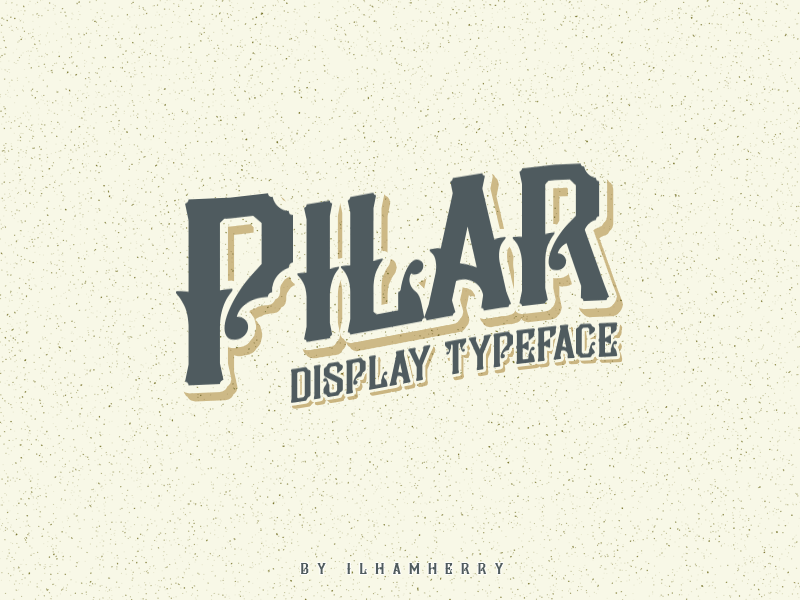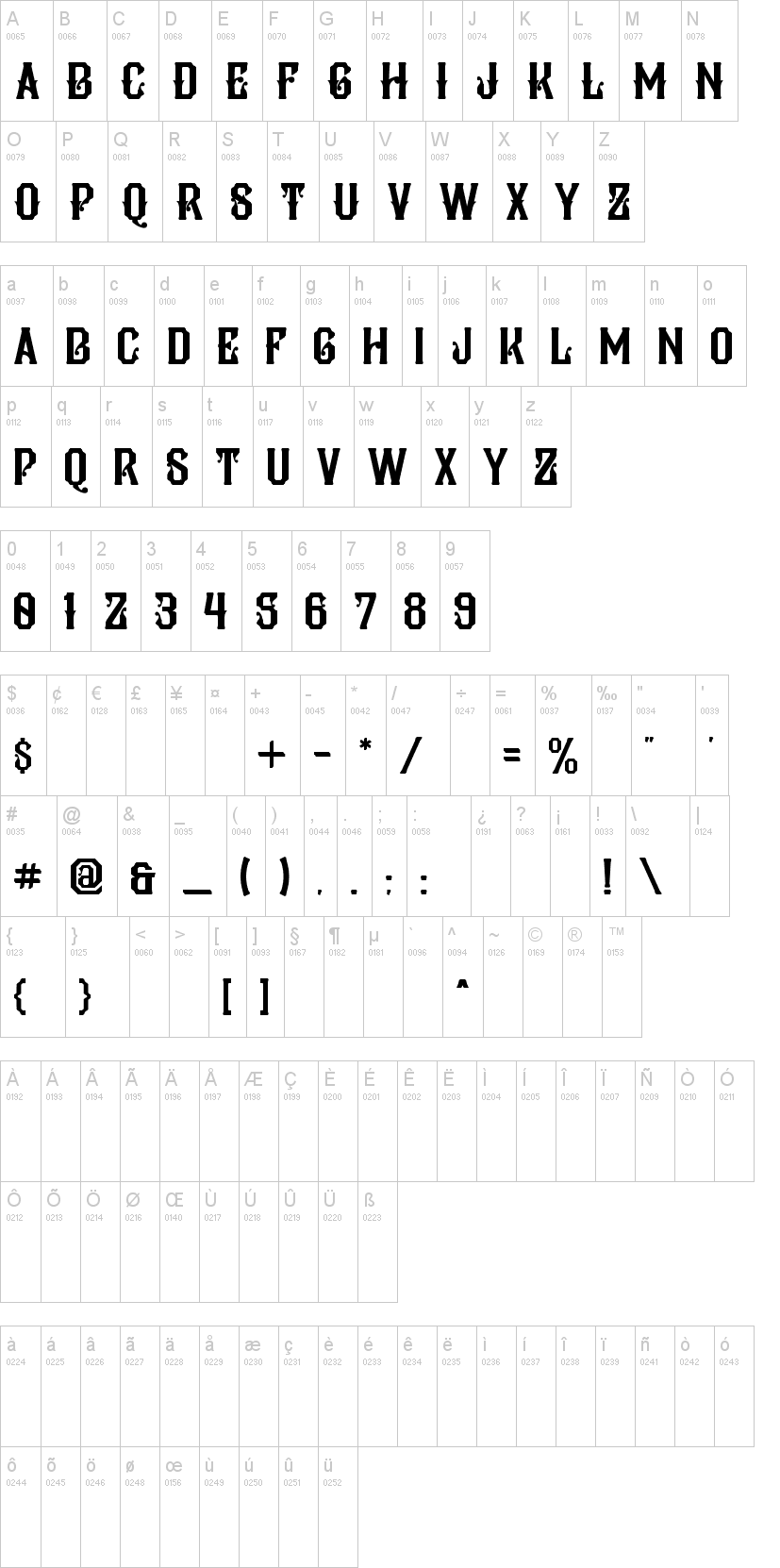
Note of the authorPilar display typeface is inspired with victorian building.
these fonts are specifically designed for display type for titles, headlines, and poster.